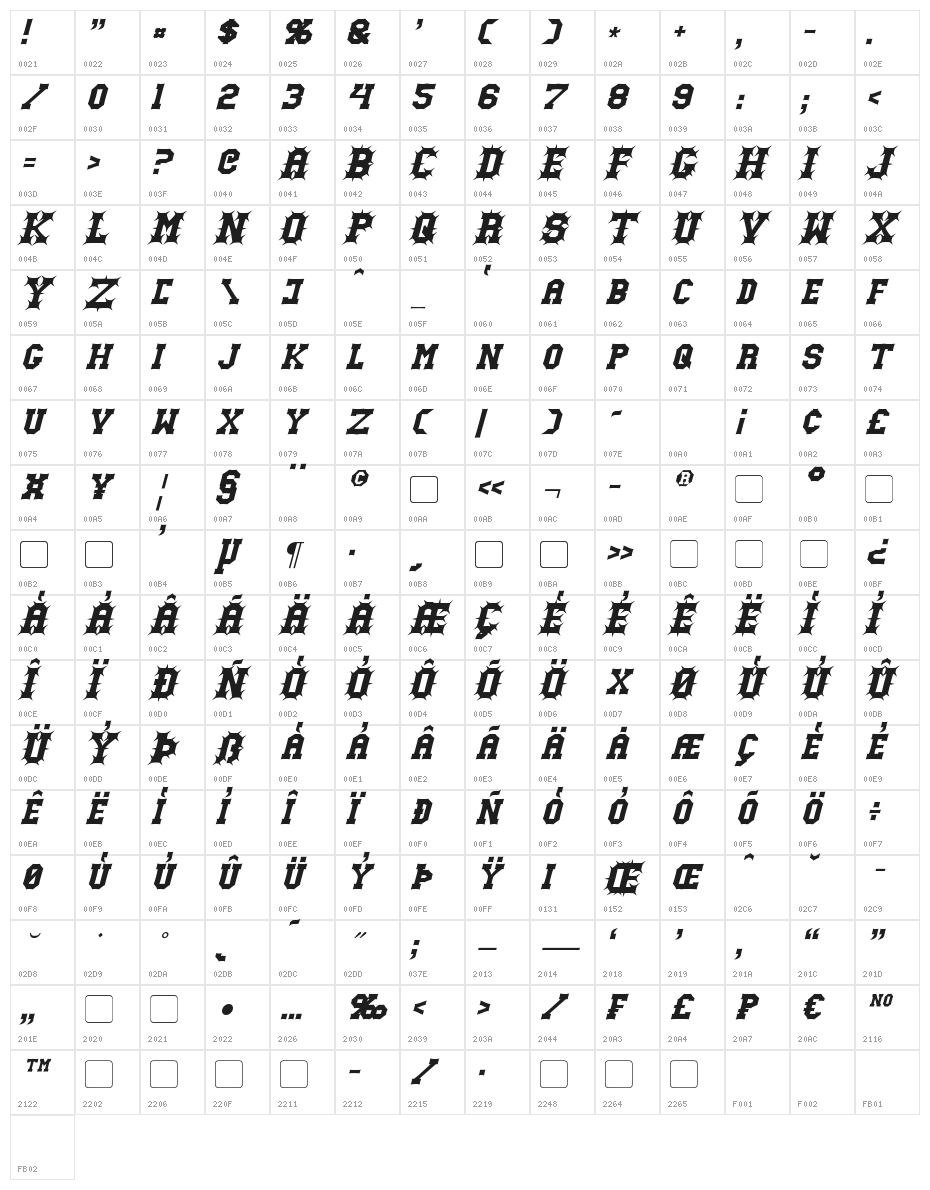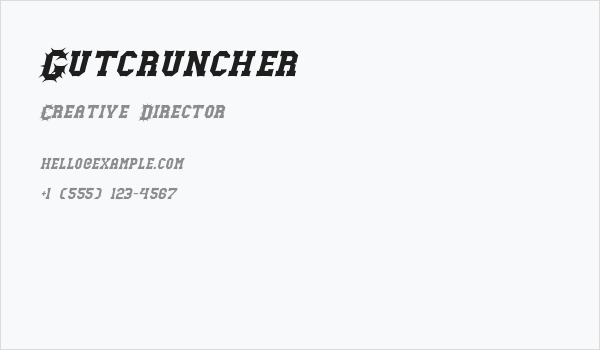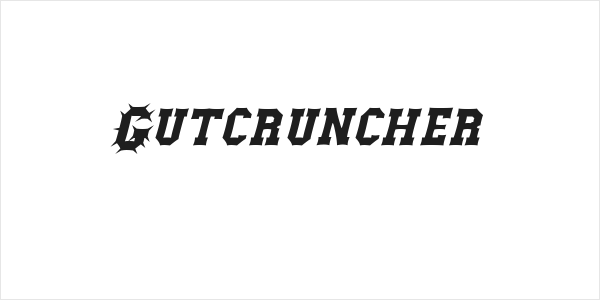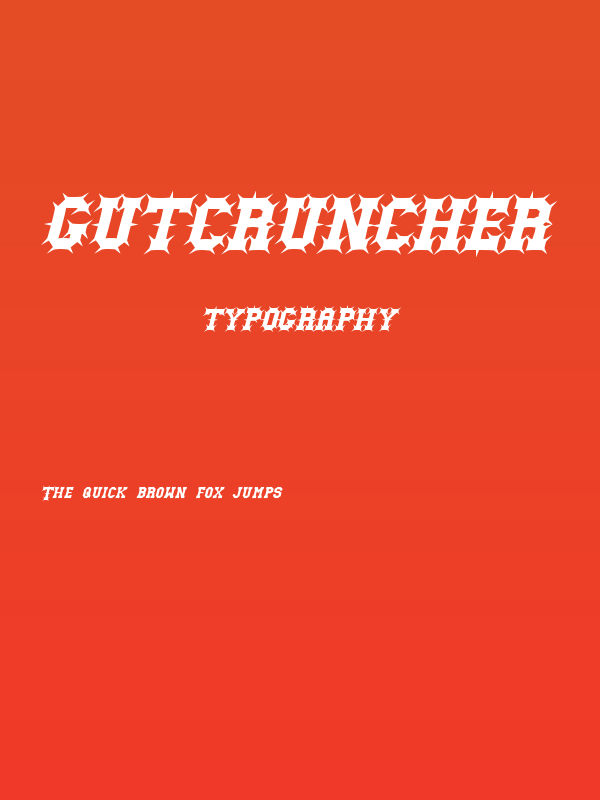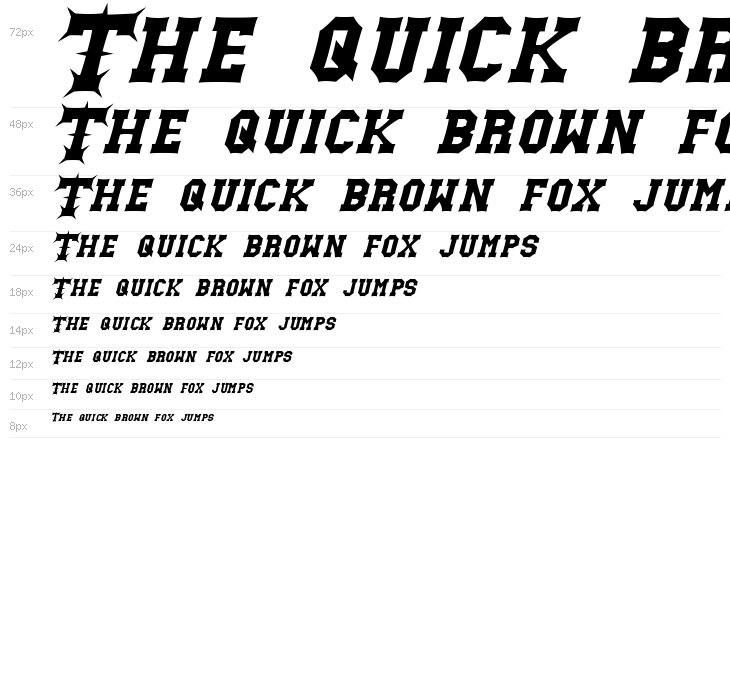
Gutcruncher Font
Gutcruncher Description
This font features a bold and aggressive design with sharp, angular edges that give it a fierce and dynamic appearance. The uppercase letters are particularly striking, with a spiky, almost thorn-like quality that adds a sense of danger and intensity. The lowercase letters maintain this edgy style, ensuring consistency throughout the typeface. Numbers and special characters are equally bold and maintain the same sharp aesthetic, making them stand out prominently. This font is perfect for projects that require a strong visual impact and a sense of boldness.
GUTCRUNCHER UPPERCASE
GUTCRUNCHER LOWERCASE
GUTCRUNCHER OTHER CHARS
| Overall Style | Modern, Aggressive |
| Proposed Projects | Ideal for heavy metal band logos, extreme sports branding, or edgy poster designs. |